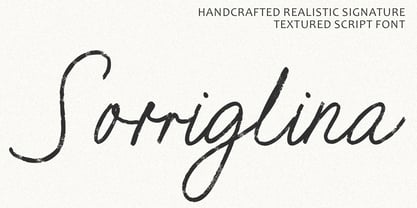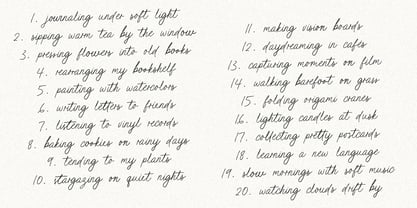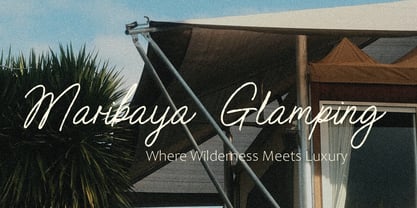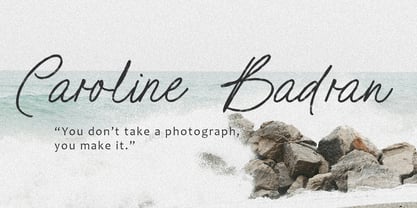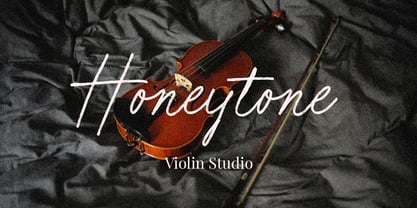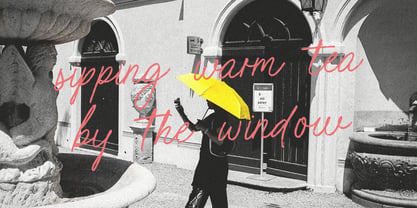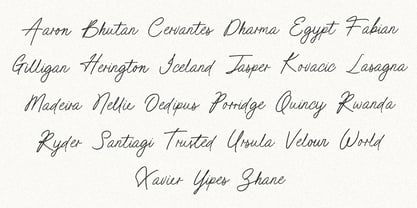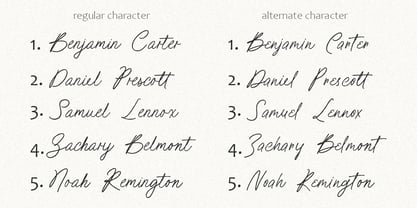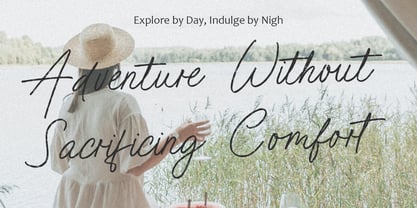
Sorriglina
by Arendxstudio
The Sorriglina Font Family was designed by Asep Rendi and published by Arendxstudio. Sorriglina contains 1 styles. More about this family
Description:
Sorriglina is a handcrafted textured script font that combines the elegance of a signature style with a natural, authentic feel. Perfect for branding, packaging, invitations, and editorial design, this font delivers a realistic handwritten charm that adds personality and warmth to your projects.
Designers: Asep Rendi
Foundry: Arendxstudio